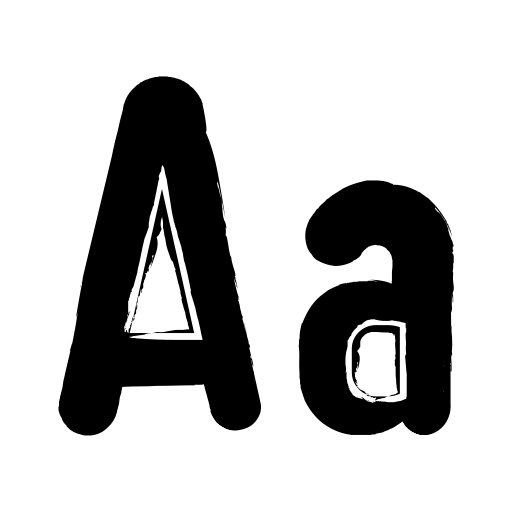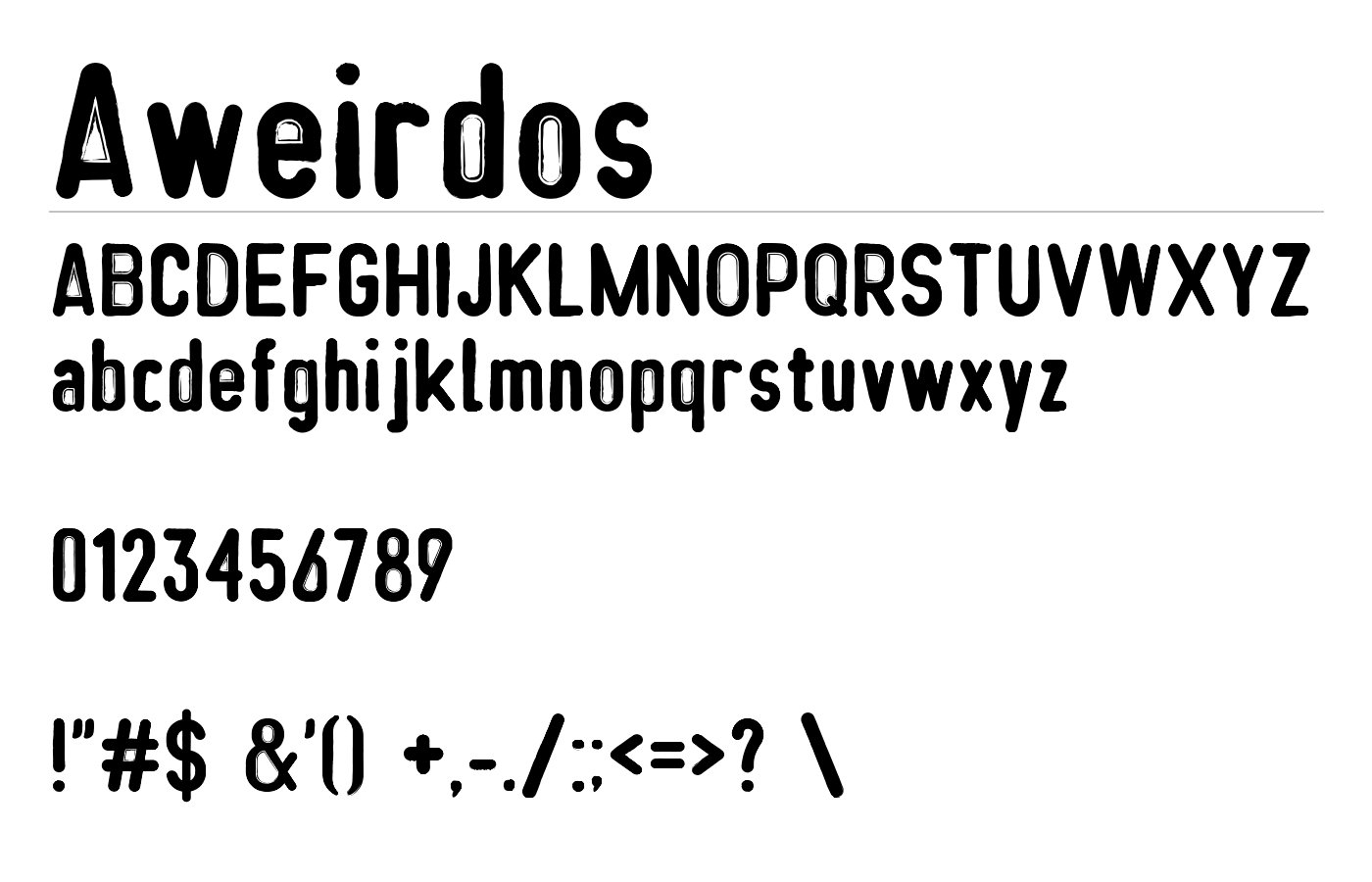
Aweirdos is a bold, condensed sans serif font with a quirky, textured style that gives it a playful and handcrafted feel. Its tall x-height and uneven stroke texture make it stand out, perfect for creative branding, posters, or headlines that want to convey a fun, unconventional vibe. This font works best where a unique, approachable look is needed to grab attention and add personality.
Aweirdos Font